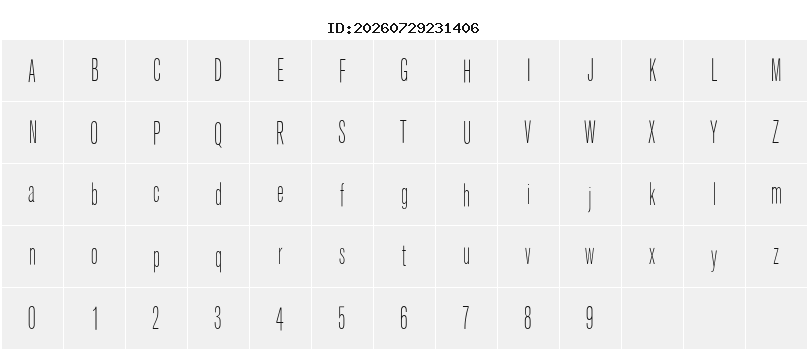
Keytin Preview
• Font Name: Keytin
• Full Font Name: Keytin
• Designer: Themnific
About Keytin.ttf
Keytin.ttf is a modern, elegant sans-serif font designed for ultimate readability and visual harmony. Perfect for branding, headlines, web design, and print materials.